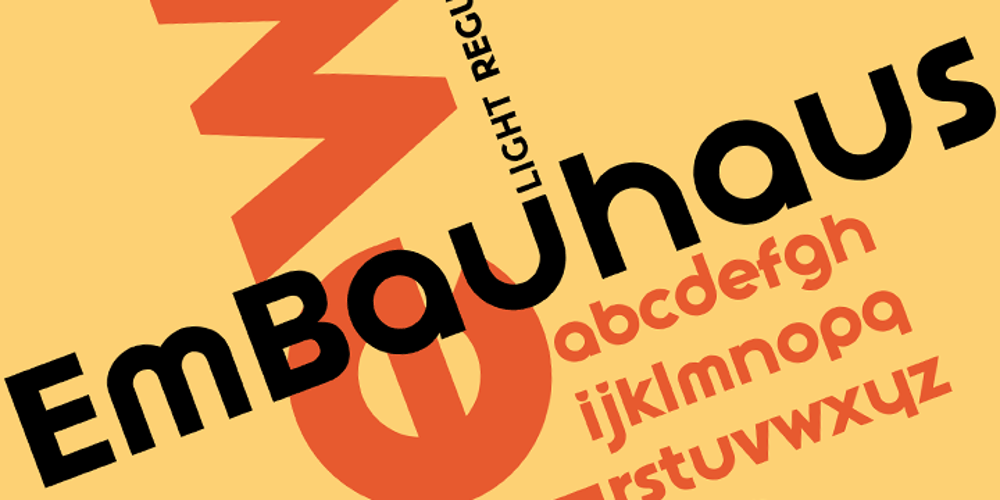
EmBauhaus Font Family was designed by Stephen Boss and published by Emboss. EmBauhaus contains 3 styles and family package options. EmBauhaus is a display typeface, geometric in style, inspired by the face named after the world changing Bauhaus School. To aid readability I rethought the original typeface and closed all of the voids cut out of the strokes. We also modified the upper case to make it a more traditional design. An example of this is the upper case L, where a 90 degree angle was added. This typeface was designed to be used judiciously in a layout, to draw focus to words and headlines, using stark angles, radii and geometry to create visual rhythm and gestalt.